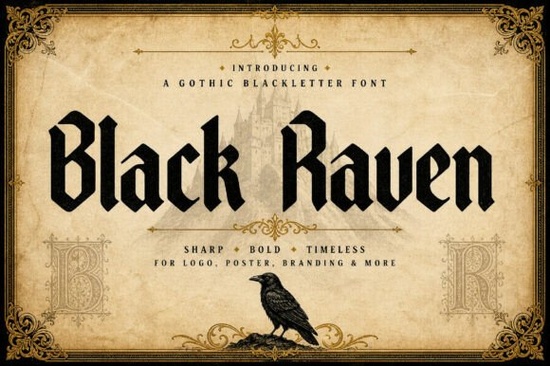
The Black Raven Font is a striking choice for anyone looking to add a dark, dramatic flair to their designs. This gothic blackletter font captures the essence of mystery and intensity, making it perfect for a variety of creative projects. Whether you're working on logos, posters, or editorial headlines, the Black Raven Font can help your work stand out with its bold and unique style.
Designed with sharp angles and strong vertical strokes, the Black Raven Font brings a sense of power and elegance to any design. Its structure is both audacious and refined, allowing it to fit seamlessly into different artistic contexts. From album covers to packaging, this font adds a layer of depth that can elevate your visual storytelling.
If you're exploring gothic typography or looking for a font that exudes drama, the Black Raven Font could be exactly what you need. It’s ideal for those who want to create a strong visual impact without compromising on style. The font's versatility makes it suitable for both digital and print media, giving you flexibility in how you use it.
What Makes the Black Raven Font Unique?
The Black Raven Font stands out due to its distinctive character and historical inspiration. Drawing from old English typography and gothic architecture, it offers a look that feels both timeless and modern. This blend of influences gives the font a rich, layered aesthetic that can bring a sense of authenticity to your work.
One of the key features of the Black Raven Font is its ability to convey emotion through type. The sharp lines and bold structure make it ideal for creating a mood that is both intense and elegant. Whether you're designing for a band, a fashion brand, or a themed event, this font can help you communicate your vision more effectively.
Its design also allows for easy readability, even at smaller sizes. This means you can use it in a wide range of applications without sacrificing clarity. The balance between strength and legibility makes it a practical choice for designers who want to maintain a professional look while still making a statement.
How to Use the Black Raven Font in Your Projects
There are many ways to incorporate the Black Raven Font into your creative work. For logos, it can add a sense of authority and intrigue, making your brand more memorable. In posters and editorial layouts, it can draw attention and set the tone for the content that follows.
For print-on-demand sellers, the Black Raven Font can be a valuable tool for creating eye-catching designs that appeal to niche markets. Its dark and dramatic look is particularly popular in industries like fashion, music, and alternative art. Using it on t-shirts, mugs, or other products can help you stand out in a competitive space.
Small businesses looking to establish a strong visual identity may find the Black Raven Font useful for branding materials. It can help create a cohesive look across different platforms, from websites to social media profiles. The font’s versatility ensures it can adapt to various design needs without losing its impact.
To learn more about the Black Raven Font and see examples of its use, you can visit Black Raven Font on the same site. These pages provide additional insights into how the font can be applied in different design scenarios.
If you're looking for more fonts in the same category, you can check out Black Raven Font on Creative Fabrica. This link will take you directly to the search results for this specific font.
For those interested in other blackletter fonts, exploring Creative Fabrica’s collection can help you find the right style for your project. Whether you're looking for something similar to the Black Raven Font or completely different, there are plenty of options to choose from.
When selecting a font, consider the message you want to convey and the audience you're targeting. The Black Raven Font is best suited for designs that require a strong, dramatic presence. If you're unsure, experimenting with different fonts can help you find the one that fits your vision most effectively.
Once you've chosen the Black Raven Font, you can start incorporating it into your designs. Whether you're working on a personal project or a client’s request, this font can add a unique touch that sets your work apart.
As you experiment with the Black Raven Font, keep in mind that less is often more. While it’s a powerful font, using it in moderation can help maintain balance in your design. Pairing it with simpler fonts or colors can create a more harmonious look.